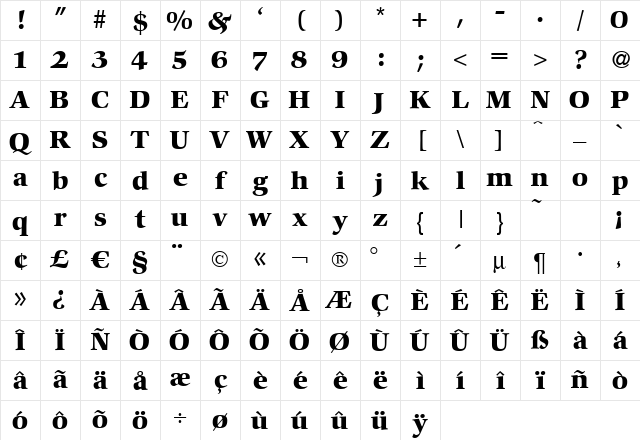
C792-Roman Bold
C792-Roman Family
C792-Roman Bold
Design Context for C792-Roman
C792-Roman is a composed and adaptable typeface that performs quietly and consistently across a wide range of design contexts. Its bold stroke weight gives it real presence on the page.